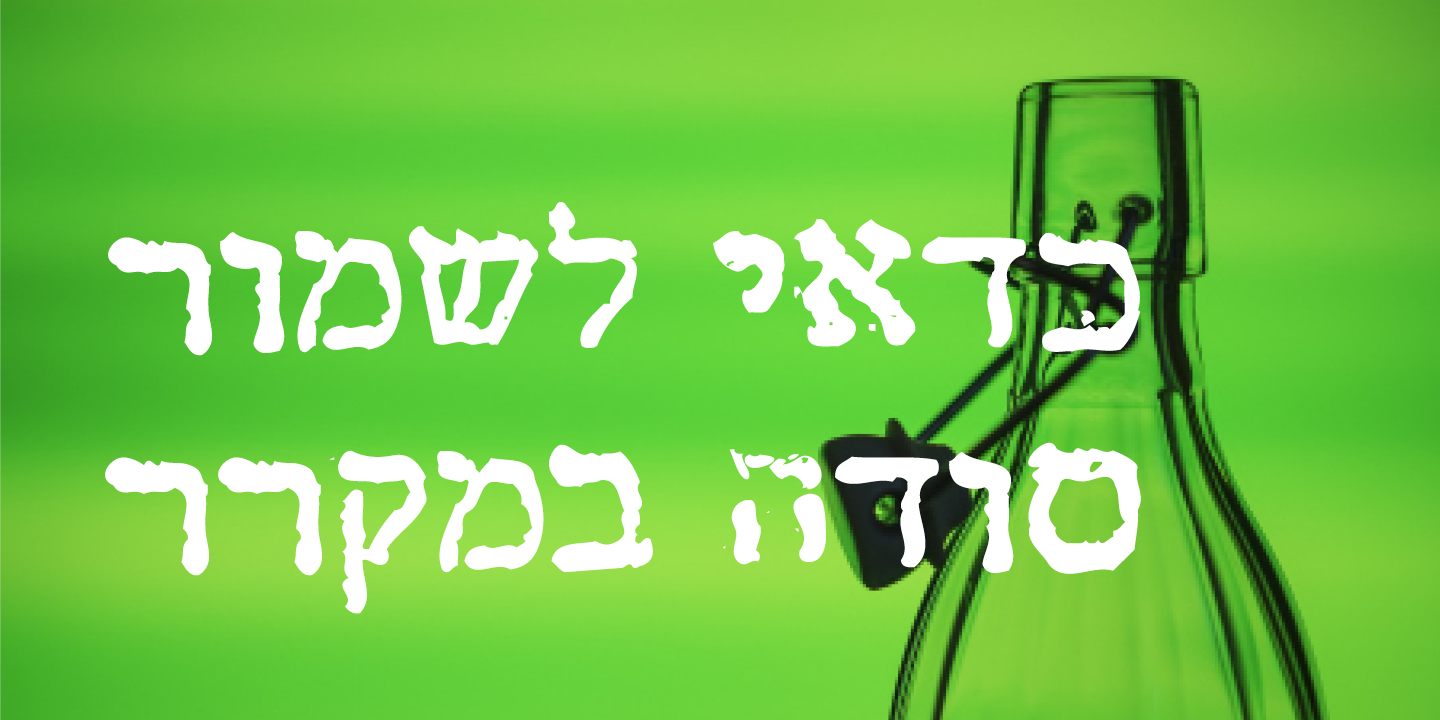
MF Remington Free Download
MF Remington Font Free Download
The MF Remington Font Free Download is ideal for book covers, horror movie posters, vintage signage, and editorial layouts, offering a gritty, typewriter-inspired aesthetic.
This font is exciting because its rough, monospaced design, mimicking early 20th-century typewriters, evokes a haunting, nostalgic atmosphere perfect for dramatic projects.
The MF Remington family includes Light, Regular, Bold, and Bold Pro styles, providing versatile options for creative typography.
Step into a vintage vibe with the MF Remington Font Free Download, a typewriter-style typeface designed by Zvika Rosenberg and published by Masterfont. Known for its rough, monospaced letterforms, MF Remington captures the essence of early 20th-century typewriters, making it perfect for crafting eerie headlines, logos, or retro-themed designs. With 250+ glyphs, including OpenType variants like ligatures, it supports Latin and Hebrew scripts for diverse applications. Available in OTF, TTF, and WOFF formats, it ensures crisp rendering across print and digital platforms. As 2025 design trends favor nostalgic, textured typography, downloading MF Remington Font Free Download keeps your work bold and atmospheric. Test it today at myfonts.com to explore its potential, and consider purchasing for commercial use to fully leverage its unique style.